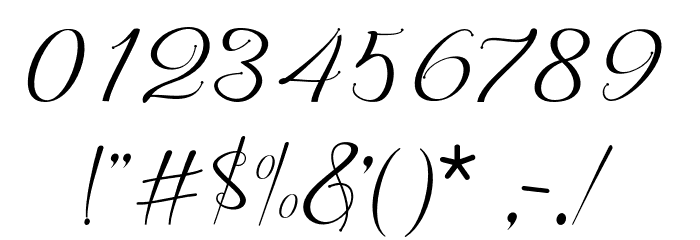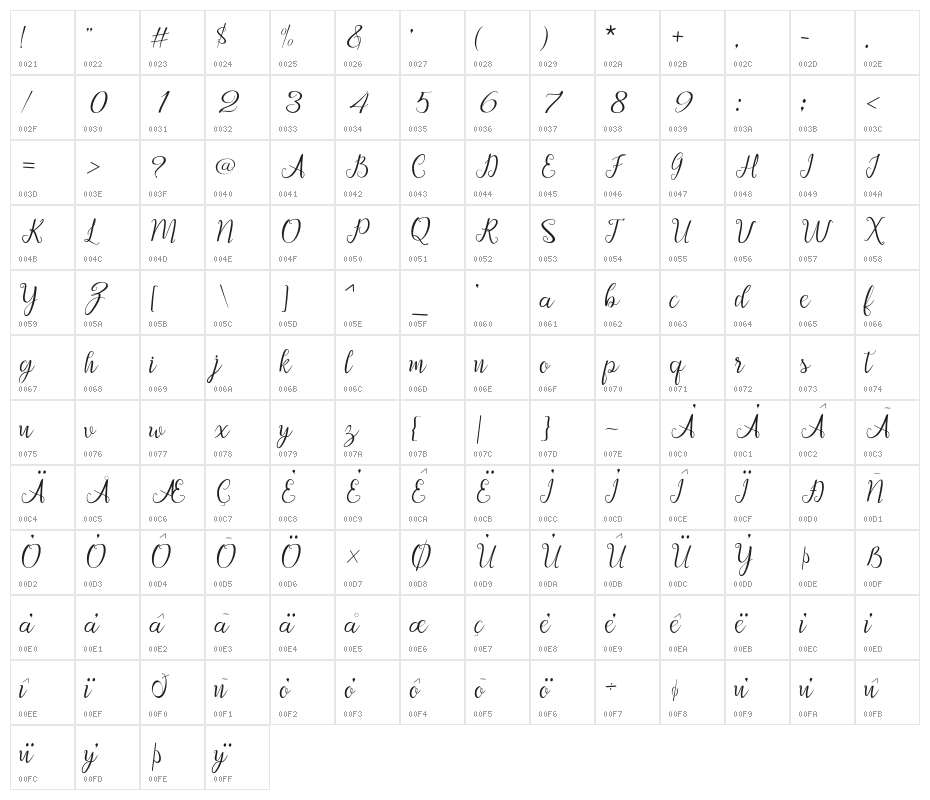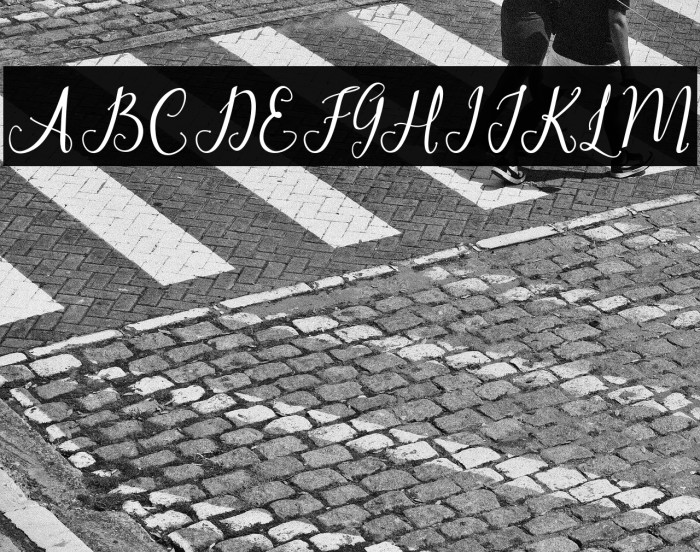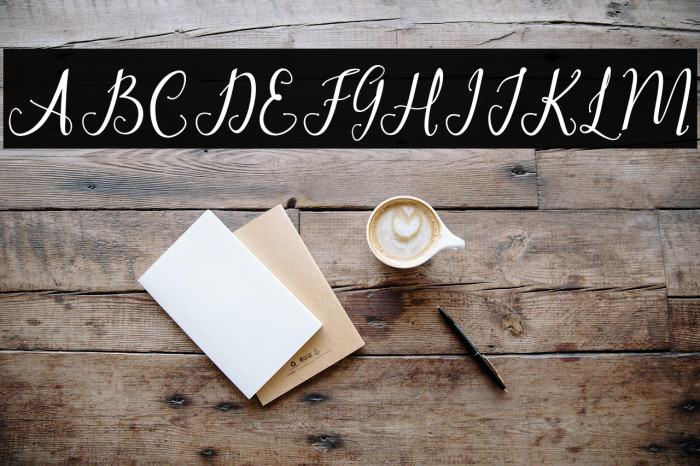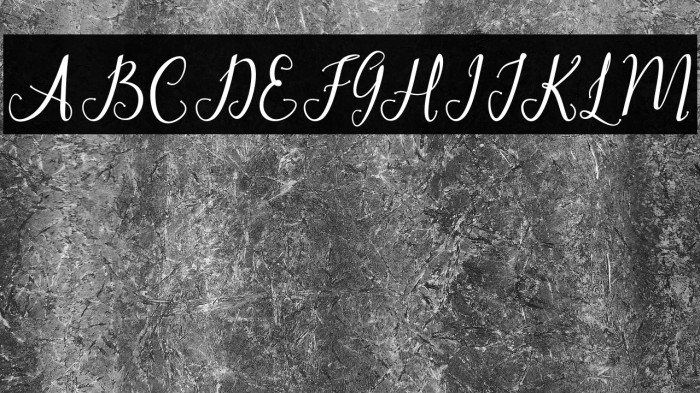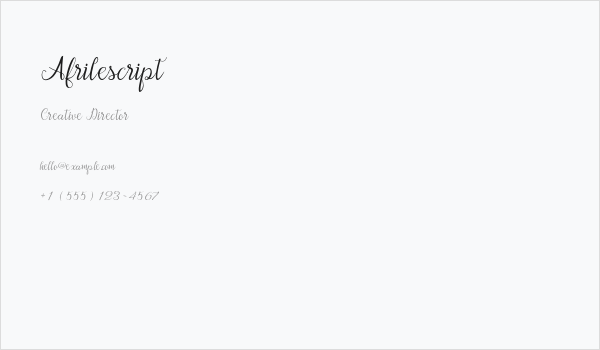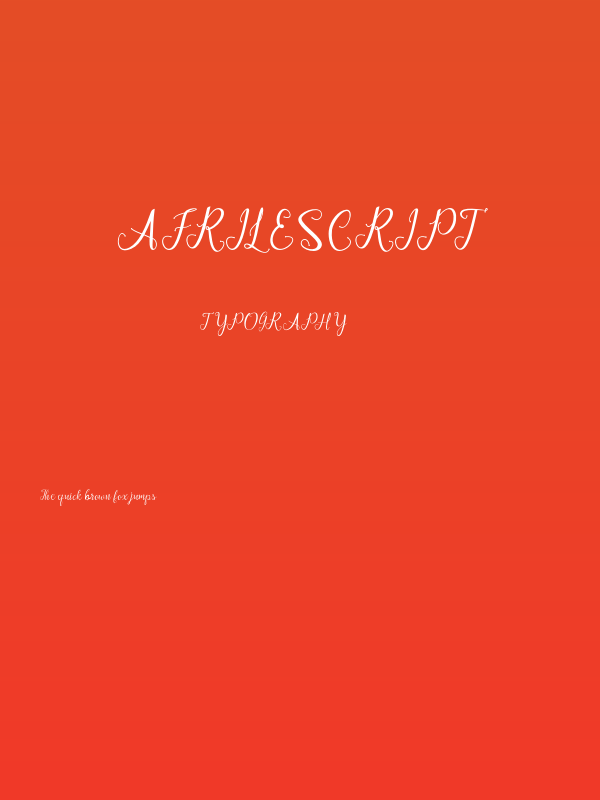
Afrilescript Font
Afrilescript Description
This elegant script font features flowing, cursive letters with a sophisticated flair. The uppercase characters are adorned with graceful loops and swirls, giving them a decorative and ornate appearance. The lowercase letters maintain a consistent style, with smooth connections and a fluid motion that enhances readability. Numbers and special characters are designed to complement the overall aesthetic, maintaining the same elegant curves and flourishes. This font exudes a sense of refinement and is perfect for adding a touch of class to any design project.